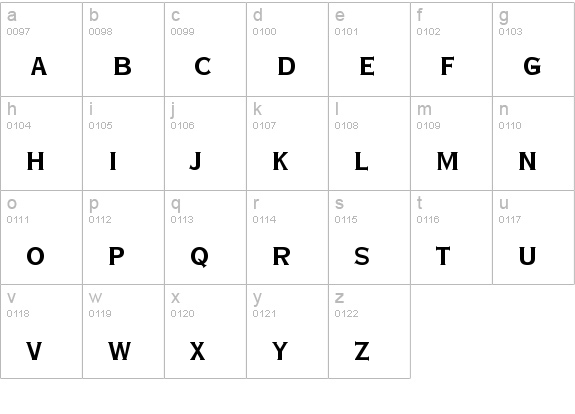
Copperplate Gothic Std 30 BC font is a timeless and elegant typeface that exudes sophistication and class. With its clean lines and sharp angles, this font is perfect for creating a professional and polished look in your designs. Its bold and distinctive letterforms make it ideal for headlines, titles, and branding projects. What sets Copperplate Gothic Std 30 BC font apart is its versatility - it can be used in a variety of design applications, from print to digital, with ease. Whether you're designing a sleek corporate identity or crafting a stylish invitation, this font will elevate your work to the next level. The best part? Copperplate Gothic Std 30 BC font is available for free download at FontsMarket.com. Simply visit the website to access this premium font and add a touch of sophistication to your designs today.